We are thrilled to announce the inaugural recipient of The Malee Scholarship. Get to know Clara Cayosa, her design work, and her aspirations in this interview.
Clara Cayosa is a designer from the Philippines and a member of And A Half, a branding and graphic design studio in Manila. Growing up, she learned the belief that a viable profession is either in law, medicine, or engineering. However, she knew she was meant to pursue a creative career, and blazed her own path to realize her dreams. During her time at Ateneo de Manila University, she was introduced to graphic design and recognized the power it has to confront social issues. Since then, Clara has made a commitment to leveraging her design skills and expertise to advocate for others.
In addition to having social justice bent to her practice, at the young age of 22, Clara has demonstrated incredible leadership skills — organizing community events as a way to foster collaboration and conversation around design. One of her most notable events was Tipong Pilipino, a typography exhibition that represented design studios and designers all over the Philippines. As for the future, while becoming a better type designer, she hopes to start local archives focused on type and the Philippines.
The Malee Scholarship team was thoroughly impressed with Clara’s passion for type design, leadership, dedication to social justice issues, and commitment to give back to her communities. We are honored to award the scholarship to her and are confident that she is a rising star in the type design world.
When did you first get interested in letterforms?
Creating brand identities was my foray into typography. When I started working for a studio, I saw how the seemingly simple act of choosing a typeface could affect the entire brand identity. The trajectory towards letterforms was gradual. Looking back to my university years, I actually loathed working with type and layout, and initially gravitated towards logos, icons, and illustration. After years of being exposed to more experienced graphic designers, I recognized how type is fully integrated in everyone’s lives. Now I find it hard to stop the urge to pursue a custom logotype for every identity project I get!
“My roots are everything to me. They’re who I am. They’re what I know.”
How does your background and upbringing shape who you are?
My identity is a blend of regional Filipino cultures. My mother is a Bisaya from Cebu City, located in the Visayas islands in the south, and my father is an Ybanag from a little coastal town on the northern tip of Luzon called Pamplona. I grew up not far from Pamplona, in Tuguegarao, a little rural city smack in the center of Cagayan Valley, where the heat pours down from the surrounding mountain ranges. Compared to life in the urban center of Manila, everything in Tuguegarao is slower and simpler.
“I’ll always be ‘that girl from Tuguegarao’, and will always create work from this perspective.”
My roots are everything to me. They’re who I am. They’re what I know. My parents, who are lawyers, slowly built their name in a city where neither of them grew up. Despite their numerous accolades and current standing, they never forgot where they came from. They inspire me to stay grounded, while not limiting myself to my personal context, and to move forward and aim outwards. When I moved to Manila for college, I proudly proclaimed where I was from and my identity as a probinsyano. Everyone referred to me as “the girl from Tuguegarao”. But instead of letting this description bother me, it actually made me more confident to embrace my upbringing, and to love my identity as it is, rather than attaching it to how others think it should be. Since I was young, I was never apologetic about my identity and the probinsyana in me will never go away. I’ll always be “that girl from Tuguegarao”, and will always create work from this perspective.
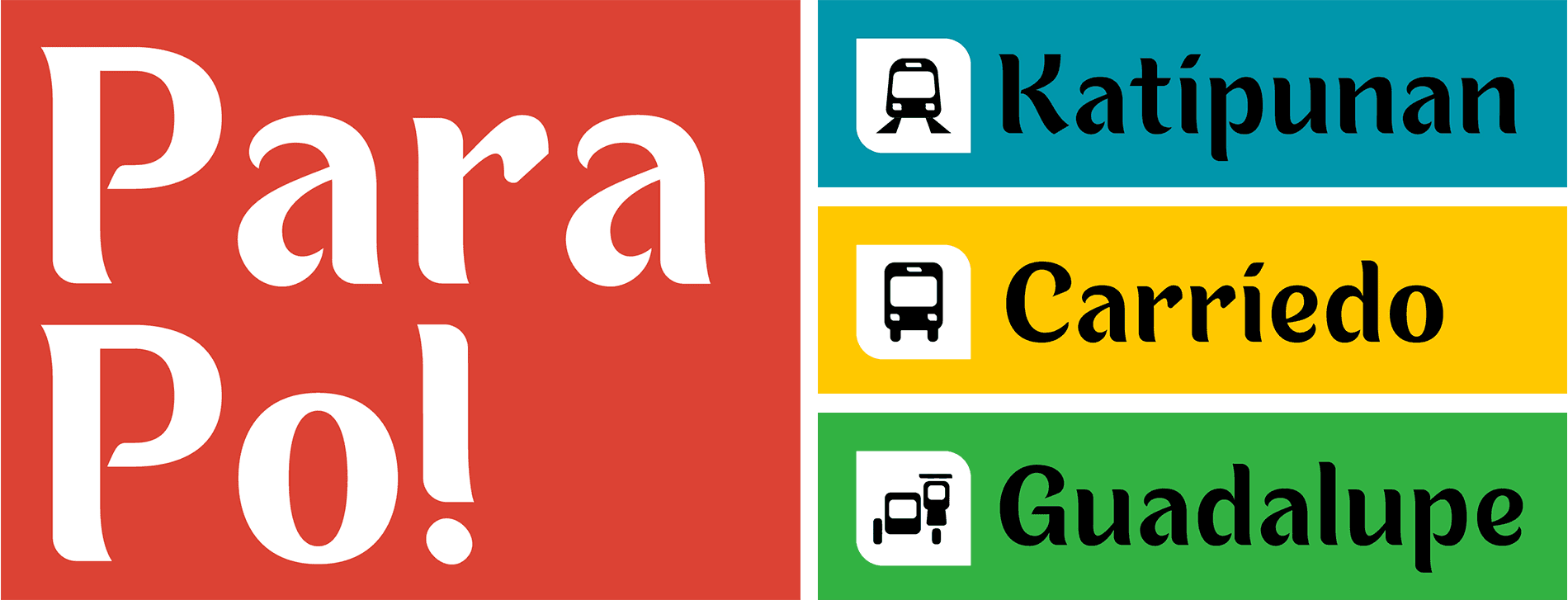
For those who don't know, can you describe the meaning and context of being probinsyano in the Philippines?
Probinsyano/probisyana and the slang term promdi refers to a person who is from the province outside of the city. It’s common for most probinsyanos to leave for Manila for “better opportunities.” Manila’s social, economic, and cultural development have outpaced the growth of provincial cities that it is seen as an imperial center. I went to Manila for university, where I lived with students from other parts of the archipelago. I became conscious of the experiences some students and I shared as probinsyanos, such as being casted away by people born and raised in more sophisticated cities like Manila. In the first few weeks of college, I was asked absurd questions such as “do you have cable TV up in the north?” “Do you ride a horse/carabao (water buffalo) to school?” In my brief stint as a cheerleader, when I got accepted to the squad, someone on the team said, “I didn’t know you’re from the province because your English is so good!”
While being probinsyano may often be ridiculed by those from more urban cities, there has been and always will be innovation born out of more insular communities.
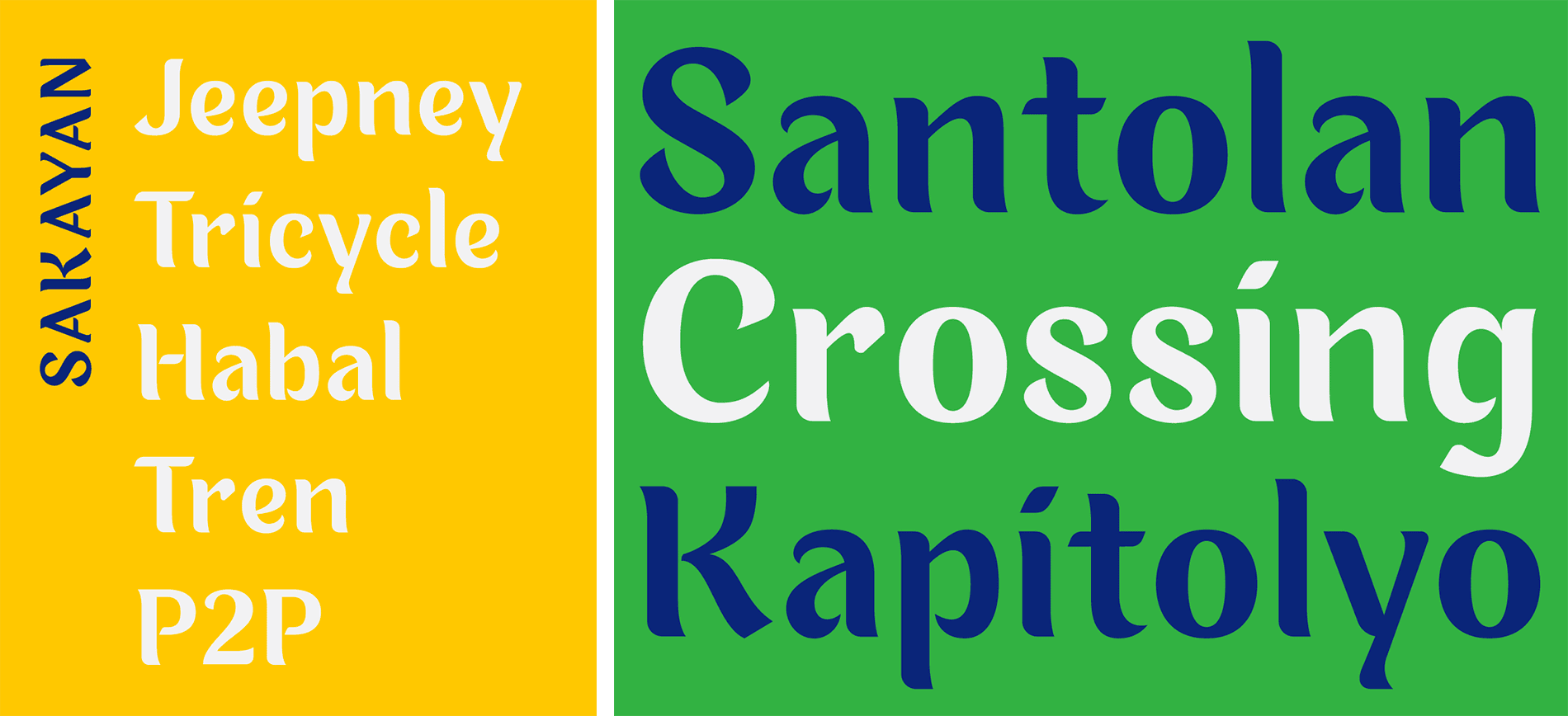
What impact do you hope to have on the type industry?
I’m hoping to bring a seat to the table for Filipino graphic design. Our country is rich in beautiful, decorative, regional type. Since we have grown accustomed to them, we sometimes forget how they are truly treasures. Through Tipong Pilipino and other activities, I hope to continue bringing graphic designers and letterers together, and uplifting Filipino type design as a whole.
“The goal is not necessarily to modernize or transform the way things are, but to enrich them with graphic design and bring out the beauty that’s already found in rural life.”
I am fascinated by graphic design’s ability to develop a product or instigate a space, especially when these are approached in a multidisciplinary manner. The goal is not necessarily to modernize or transform the way things are, but to enrich them with graphic design and bring out the beauty that’s already found in rural life.
Who are some of your favorite type designers in the Philippines, and beyond?
I feel extremely grateful to work in And A Half with Mike Parker, who piqued my interest in type. Other Filipino type designers I admire are Aaron Amar, the man behind Cubao typeface that was inspired by jeepney placards and Jo Malinis of +63 Design Co. I absolutely love Optima, so I’ll include Hermann Zapf.